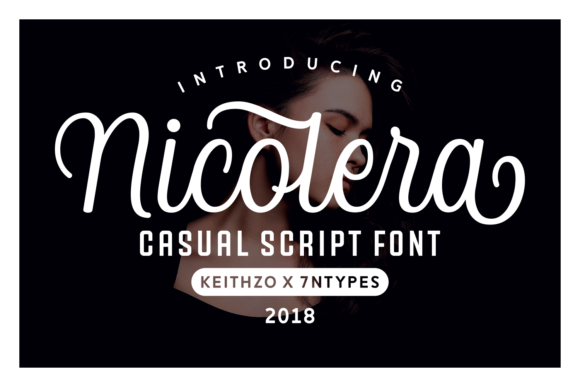
Nicolera: A Handwritten Typeface for Playful and Elegant Branding
If you're looking for a font that blends casual charm with refined elegance, Nicolera is the typeface to consider. This handwritten style offers a unique balance of readability and artistic flair, making it ideal for projects that require both personality and professionalism.
Designed with smooth curves and intricate details, Nicolera stands out in a sea of more rigid or overly stylized fonts. Its legibility ensures that even in smaller sizes, the text remains easy to read, while its playful elements add a touch of creativity that can elevate any design.
Real-World Applications of Nicolera
One of the most appealing aspects of Nicolera is its versatility. It works well in a variety of settings, from branding and packaging to social media and digital content. For instance, a small business owner launching a new line of handmade candles might use Nicolera for their logo and product labels. The font's soft, flowing lines complement the natural and artisanal feel of the products, creating a cohesive visual identity that resonates with customers.
Similarly, a boutique coffee shop could benefit from using Nicolera on their signage and menu boards. The font adds a warm, inviting tone that matches the cozy atmosphere of the space. Its elegant swashes and terminal details give the brand a sense of sophistication without feeling too formal, which is perfect for a local, community-focused business.
In the realm of digital marketing, Nicolera can be used to create eye-catching headlines and call-to-action buttons. Its distinctive look helps content stand out on social media platforms and websites, drawing attention and encouraging engagement. For example, a fitness influencer might use Nicolera in their Instagram posts to highlight motivational quotes or event announcements, adding a personal and creative touch to their online presence.
Who Benefits from Using Nicolera?
The appeal of Nicolera extends beyond just designers and marketers. Entrepreneurs, artists, and creatives across various industries can find value in this typeface. A wedding planner, for instance, might use Nicolera for invitations and event signage, as it conveys a sense of warmth and celebration. The font's ability to convey emotion through its form makes it a strong choice for events that rely on personal connections and aesthetics.
Graphic designers working on branding projects often appreciate Nicolera for its ability to add a human touch to otherwise digital designs. Whether it's for a tech startup looking to appear approachable or a nonprofit organization aiming to inspire trust, the font can help shape the visual language of a brand in a meaningful way.
For educators or content creators, Nicolera can be a useful tool when designing materials that need to be both informative and engaging. Its readability ensures that important information is easily digestible, while its stylistic elements make the content more visually appealing. This is particularly beneficial in educational resources, such as worksheets or e-books, where clarity and interest are equally important.
Considerations When Using Nicolera
Before incorporating Nicolera into a project, it's important to consider the context and audience. While the font is highly readable, it may not be suitable for large blocks of text, such as body copy in a magazine or book. In these cases, a more traditional serif or sans-serif font would be more appropriate. However, Nicolera shines when used strategically, such as in headings, titles, or short phrases that need to capture attention.
Another consideration is the availability of alternate characters and dingbats. Nicolera comes with a set of stunning alternates, including beautiful terminal swashes that add a layer of sophistication. These features can be used to create unique variations of text, but they also require careful selection to maintain consistency and avoid visual clutter. Designers should experiment with different combinations to find what works best for their specific needs.
It's also worth noting that the effectiveness of Nicolera can depend on the medium in which it's used. On digital screens, the font's details may appear slightly less sharp than on printed materials. This is especially true for lower-resolution displays, where the fine lines and curves might not render as clearly. To mitigate this, users should test the font in different formats and adjust size and spacing as needed.
When to Avoid Nicolera
While Nicolera is a powerful tool in many situations, there are scenarios where it may not be the best choice. For example, in corporate or financial environments where a more traditional and neutral font is expected, Nicolera could come across as too informal or unprofessional. In such cases, a clean, modern typeface like Helvetica or Roboto might be more appropriate.
Additionally, if the goal is to create a minimalist or modern aesthetic, Nicolera's ornate details might clash with the overall design. It's essential to evaluate how the font interacts with other elements of the composition, such as colors, images, and layout. If the design feels overwhelming or inconsistent, it may be necessary to explore alternative options.
Ultimately, the success of using Nicolera depends on how well it aligns with the project's goals and the preferences of the target audience. By understanding its strengths and limitations, users can make informed decisions about when and how to incorporate this versatile typeface into their work.